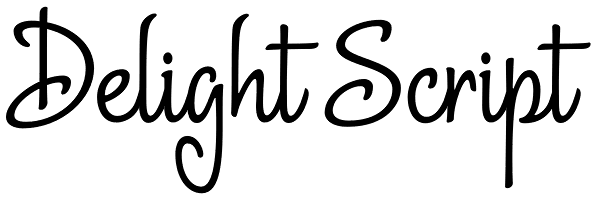
Delight Script
Delight Script is a fresh and original Angel Koziupa design that takes its cue from post-WWII advertising scripts. Casual, bouncy and playful, this upright script is built and engineered by Alejandro Paul with tons of alternates that can make every...